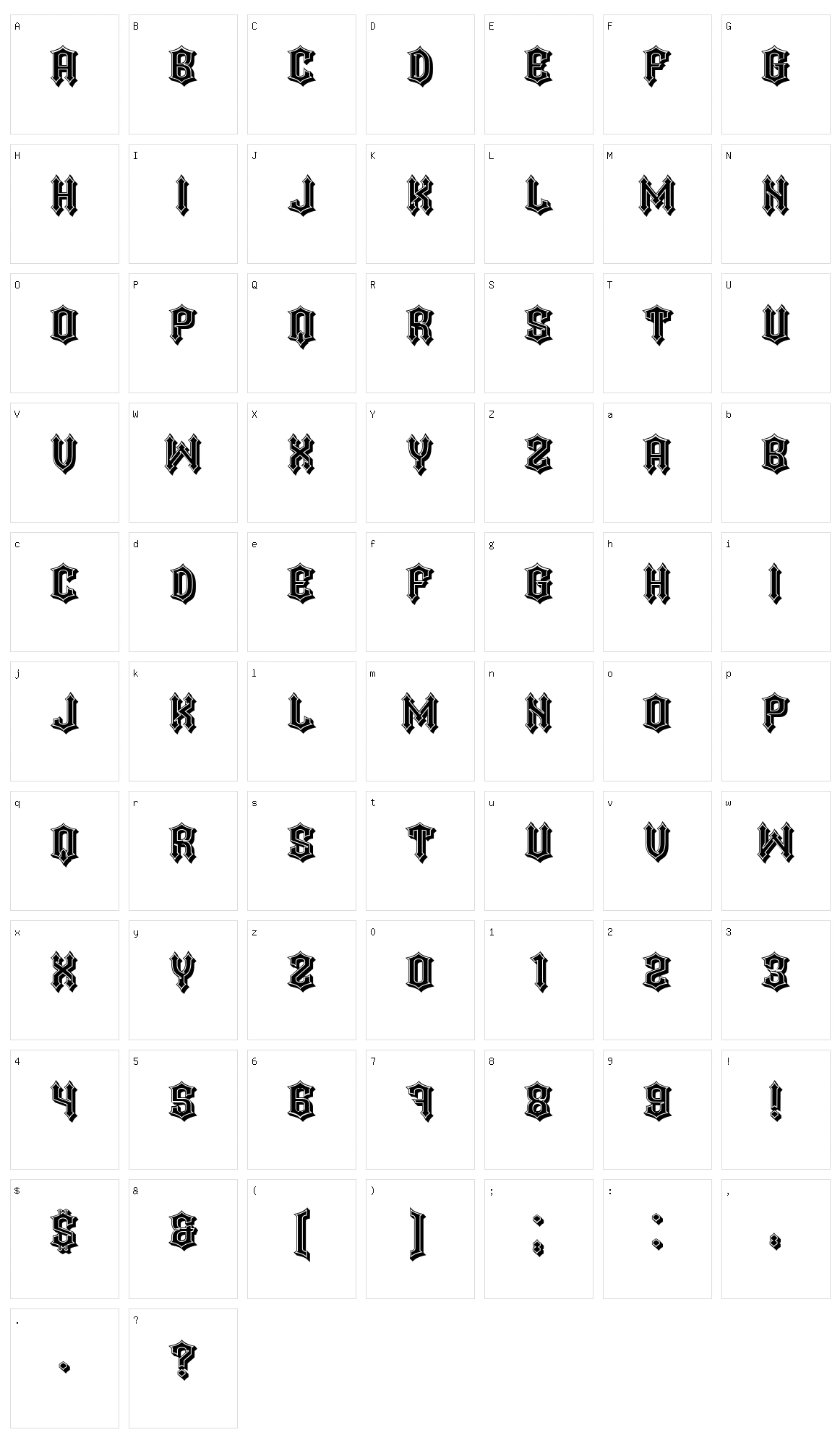
The free font Darker is carefully designed by Vladimir Nikolic, showcasing a thoughtful balance of creativity and usability and belongs to the Gothic font family. When you download the ZIP file, it contains only 45.45 KB of font files, making it lightweight and quick to download. Please review the license details below to understand permitted usage and distribution rights. If license information is not available, we recommend using this font for personal projects only or contacting the author directly for commercial usage permissions.